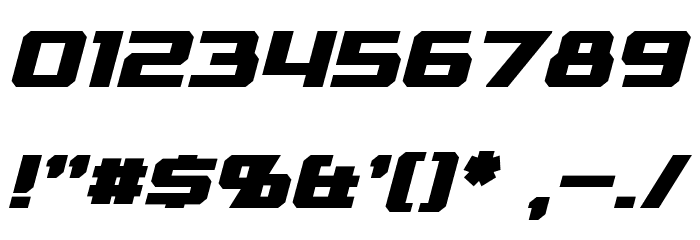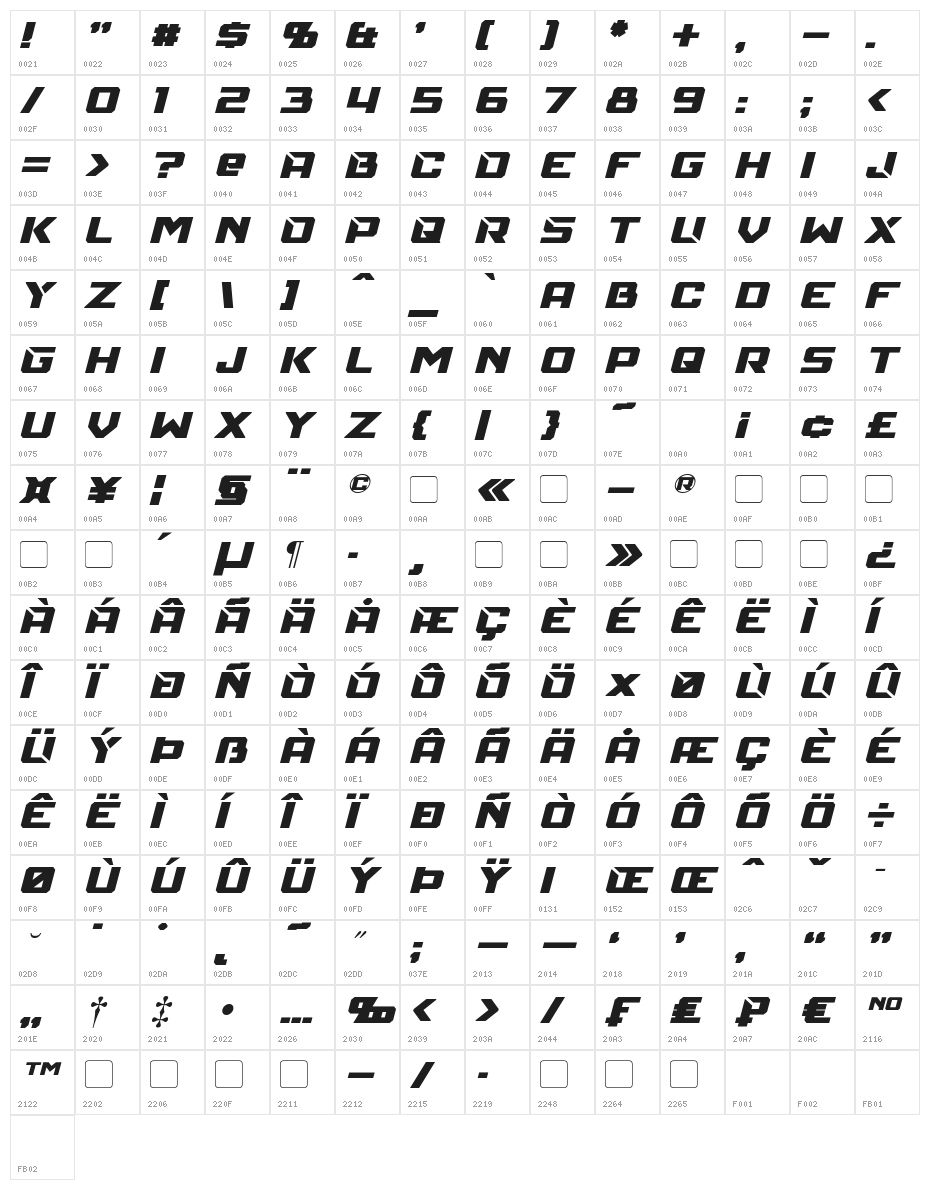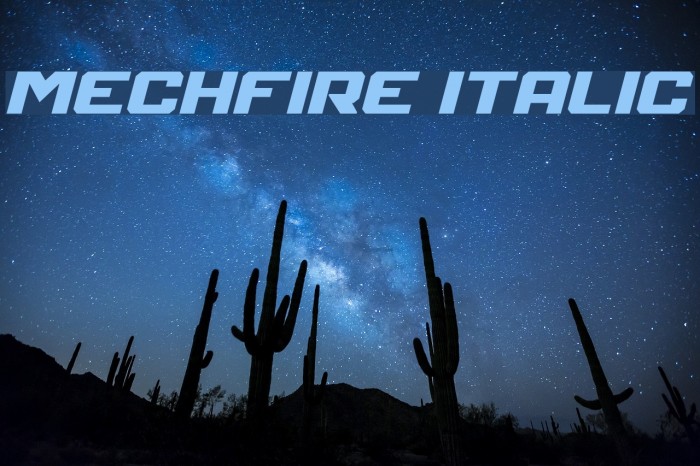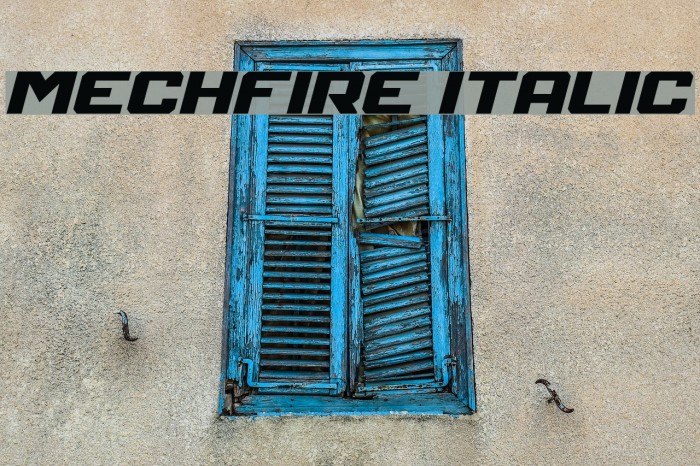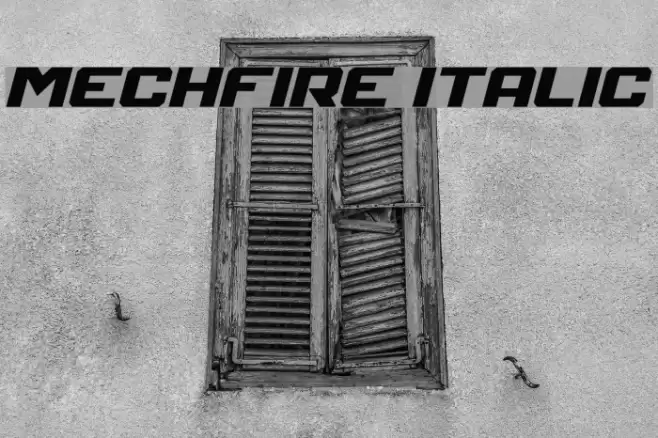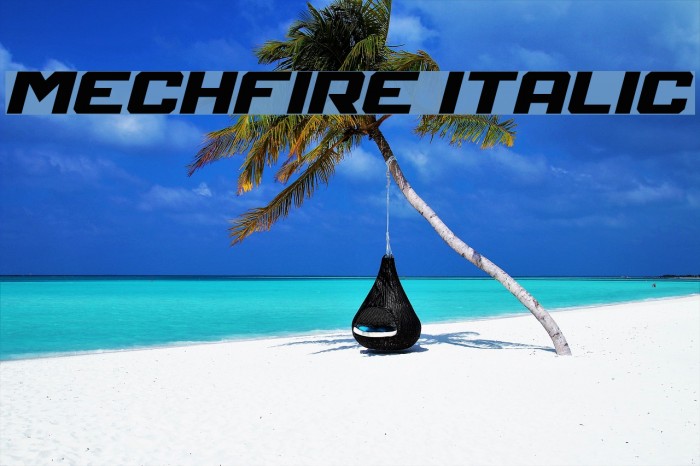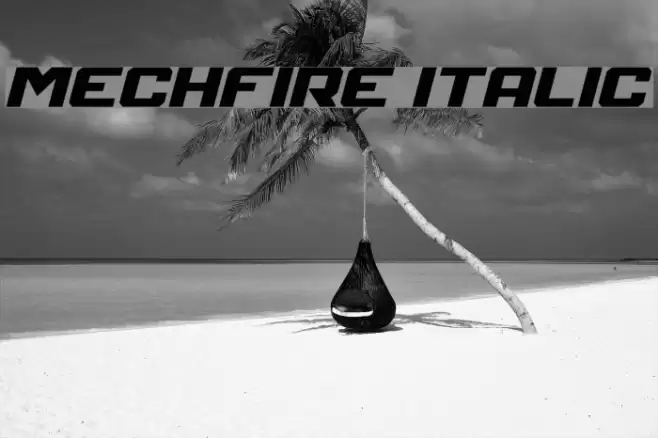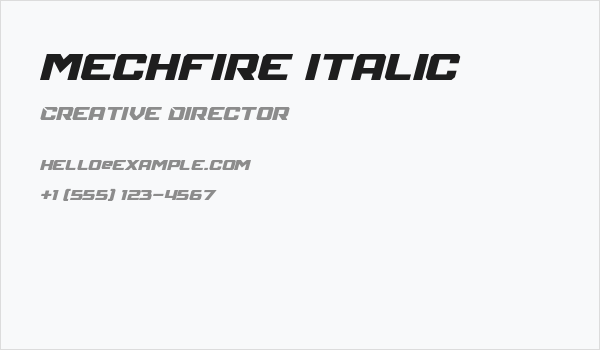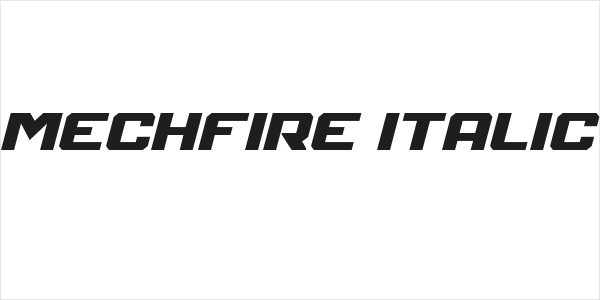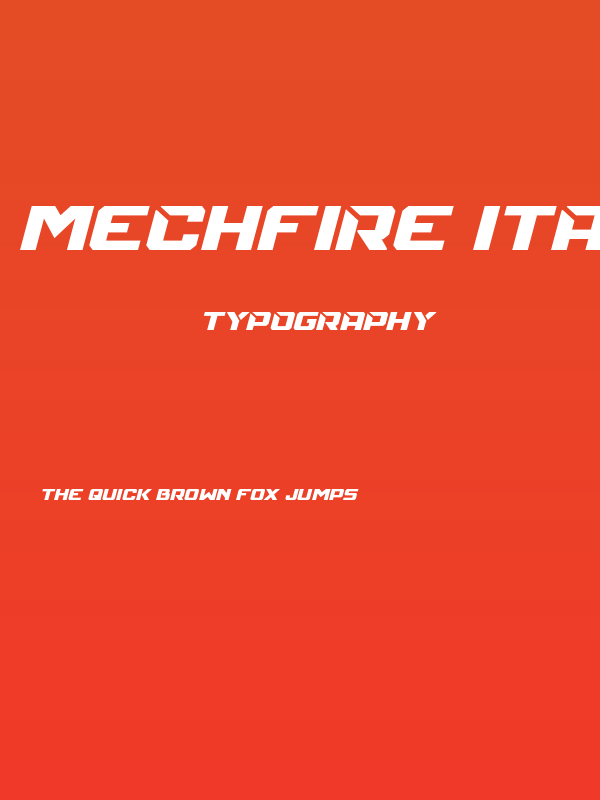
Mechfire Italic Font
Mechfire Italic Description
This font features a bold, futuristic design with sharp, angular lines and a distinct italic slant, giving it a dynamic and energetic appearance. The characters are wide and have a strong presence, making them ideal for attention-grabbing headlines. The uppercase and lowercase letters maintain a consistent style, with geometric shapes and a slight forward tilt that enhances the sense of motion. The numerals and special characters are equally bold, with unique angles and cuts that add to the overall modern aesthetic.
| Proposed Projects | Ideal for technology branding, video game titles, sci-fi movie posters, and sports team logos. |